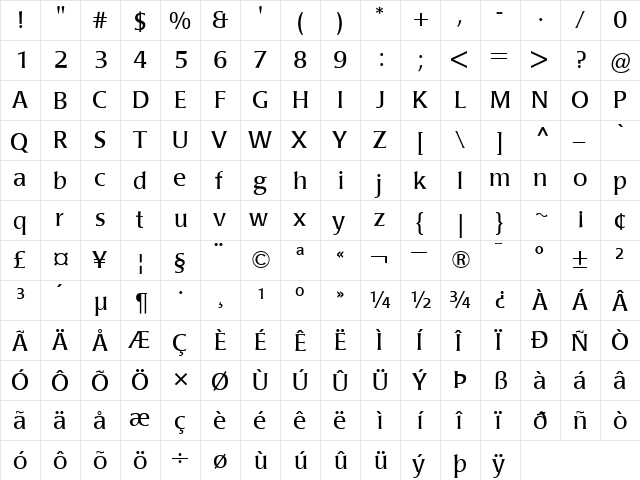
Poppl-Laudatio Roman
Design Context for Poppl-Laudatio Typeface
Poppl-Laudatio is a composed and adaptable typeface that performs quietly and consistently across a wide range of design contexts.